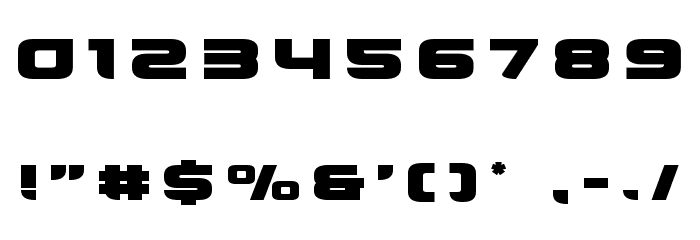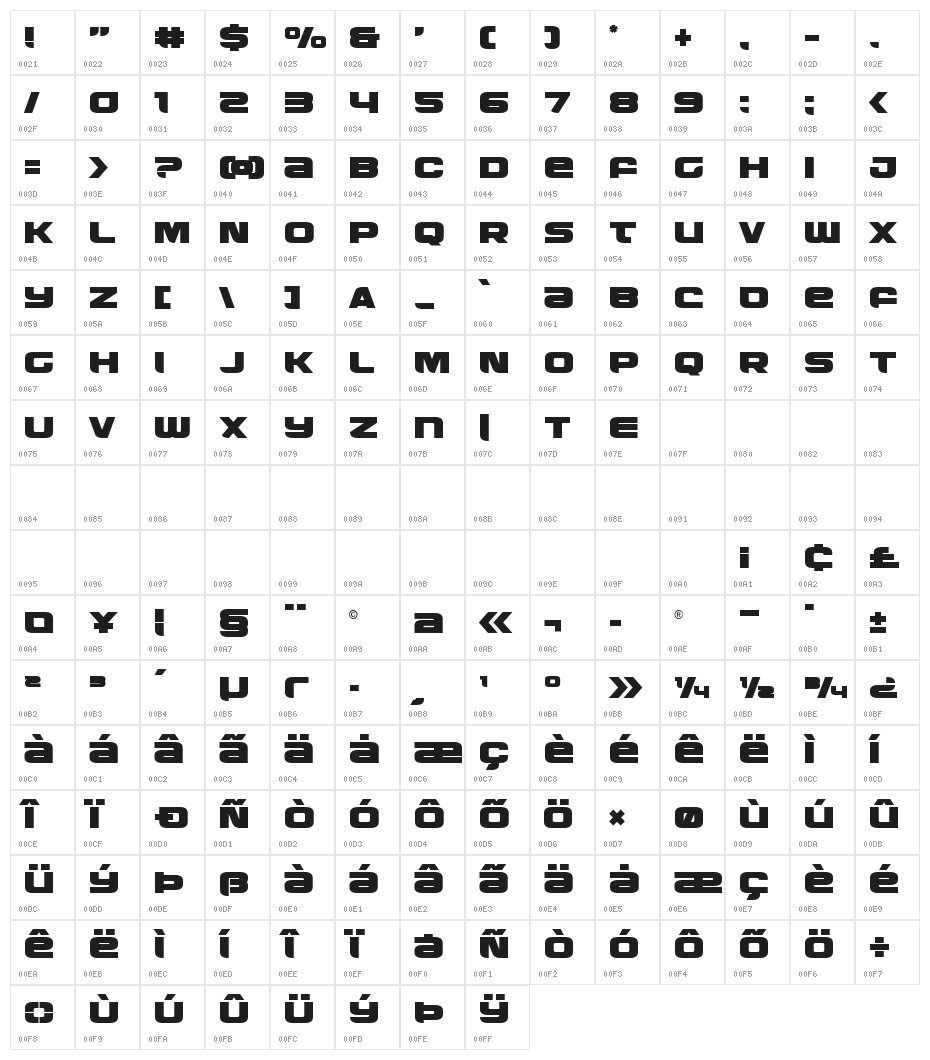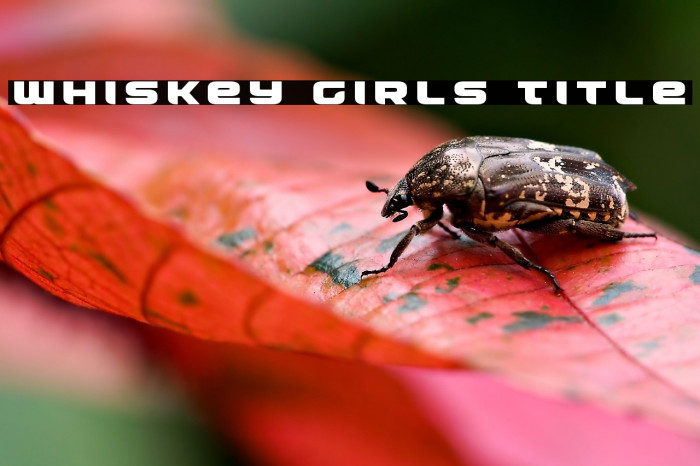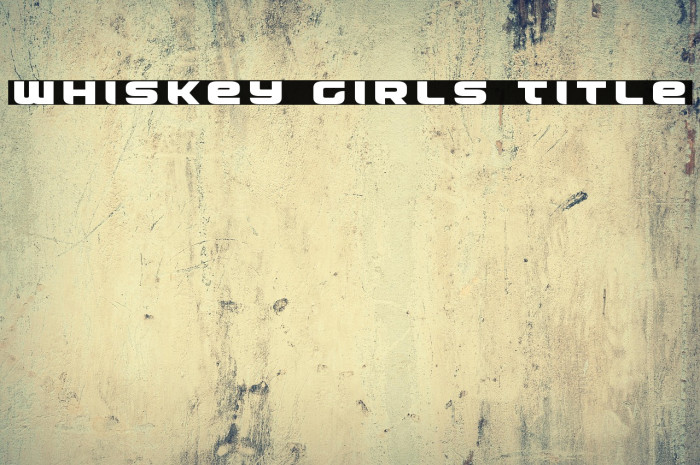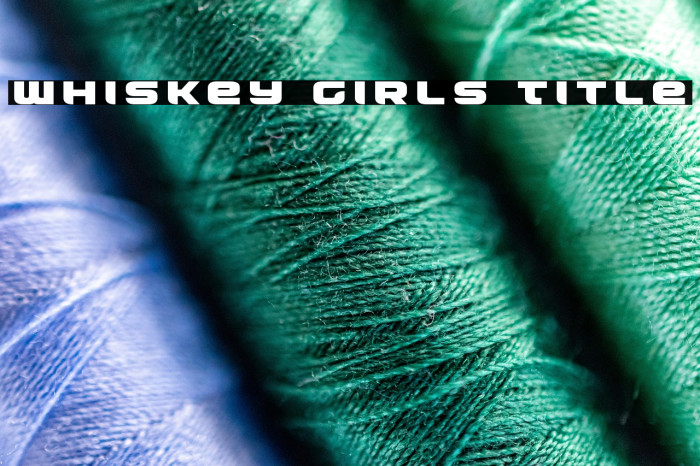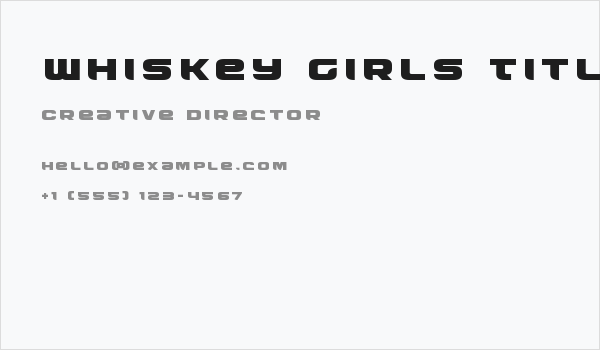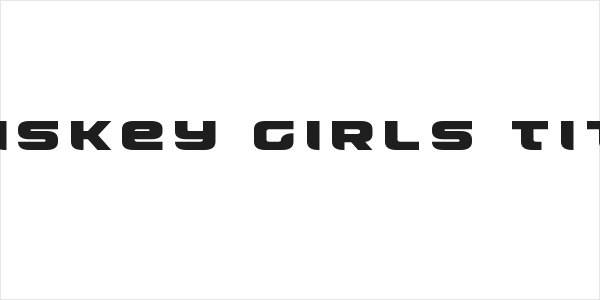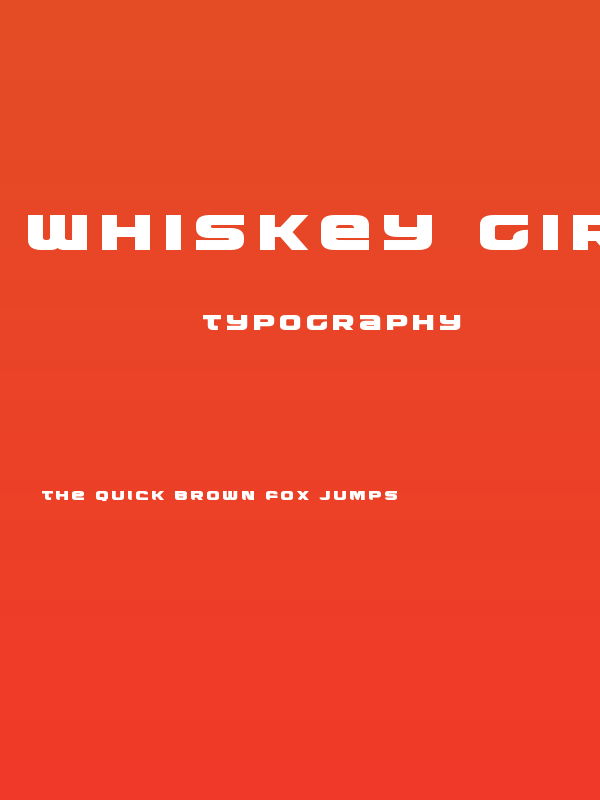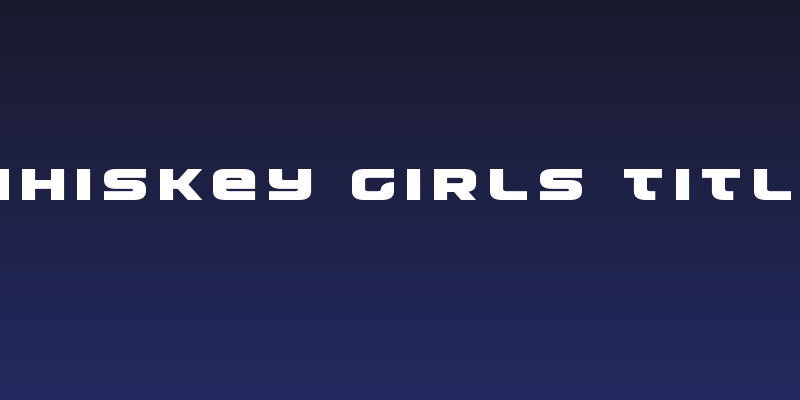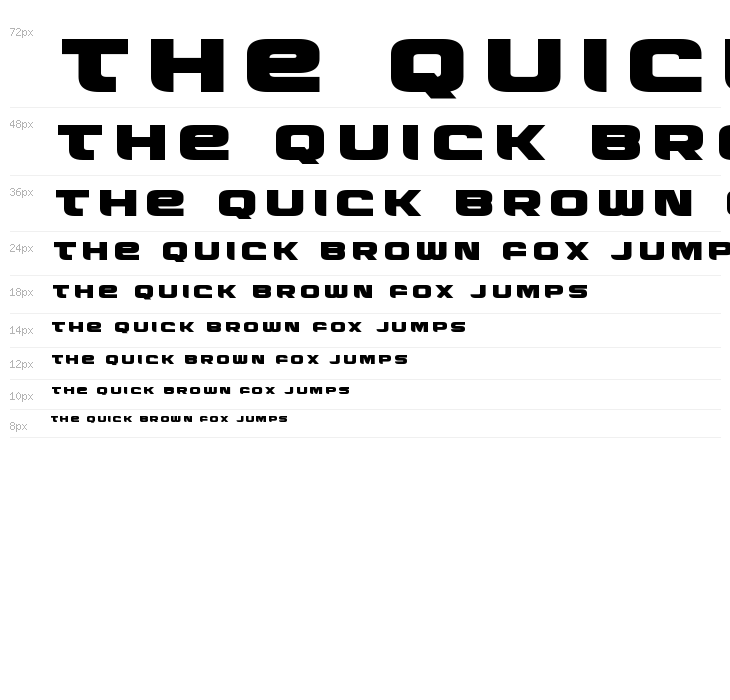
Whiskey Girls Title Font
Whiskey Girls Title Description
This font features a bold, geometric design with a modern and futuristic appeal. The characters are uniformly thick, with rounded edges that soften the overall look. The uppercase and lowercase letters maintain a consistent style, providing a cohesive appearance across the alphabet. The numbers and special characters follow the same design principles, ensuring versatility in various applications. The font's structure is robust and impactful, making it suitable for attention-grabbing headlines and titles. Its unique style is both contemporary and slightly retro, offering a distinctive visual identity.
| Proposed Projects | Ideal for branding, posters, video game graphics, and sci-fi themed projects. |